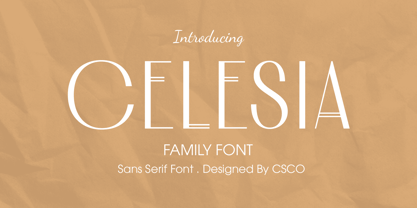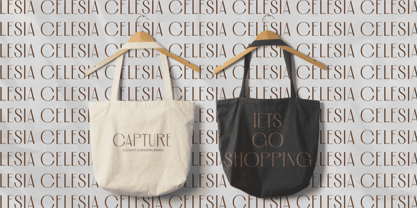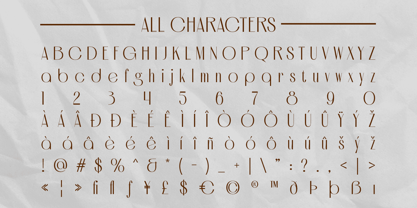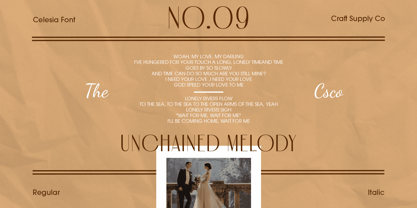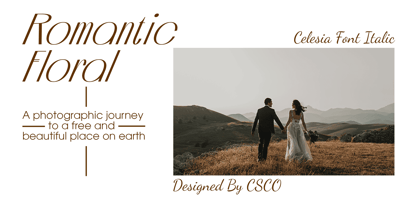
Celesia
by Craft Supply Co
The Celesia Font Family was designed by Trio Nazzar Saputra, Wahyu Hadi Yuana and published by Craft Supply Co. Celesia contains 5 styles and family package options. More about this family
Celesia Font: Modern Elegance with Art Deco Flair
Sleek Modernity
Celesia, a masterpiece of modern sans serif, seamlessly blends sleek contemporary aesthetics with the timeless allure of Art Deco inspiration.
Art Deco Revival
Channeling the spirit of Art Deco, Celesia redefines the style with a modern twist, bringing the elegance of the past into the present design landscape.
Contemporary Sophistication
Elevate your projects with Celesia’s contemporary sophistication. Each character reflects a balance of tradition and modernity, making it an ideal choice for a myriad of design applications.
Versatile Applications
Whether for branding, editorial, or digital interfaces, Celesia shines with adaptability, adding a touch of modern elegance to every visual creation.
Conclusion
Celesia isn’t just a font; it’s a visual journey through time, seamlessly marrying the past with the present. Embrace modern elegance with Celesia, where each letter tells a story of timeless sophistication in the contemporary design realm.
Designers: Trio Nazzar Saputra, Wahyu Hadi Yuana
Foundry: Craft Supply Co